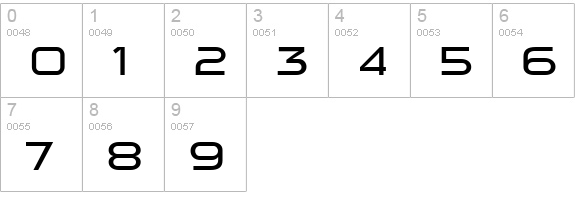
Sui Generis Light is a refined, elegant variant in the Sui typeface family \xE2\x80\x94 well suited to elegant body text, refined sub-headings, and luxury branding.
Sui Generis Light font is a modern and elegant typeface that exudes sophistication and style. Its sleek lines and graceful curves make it perfect for a wide range of design projects, from branding to editorial design. The light weight of the font gives it a delicate and airy quality, making it ideal for use in headers, titles, and other display text. What sets Sui Generis Light font apart is that it is not only beautiful, but also free to use. This means that you can add a touch of luxury to your designs without breaking the bank. Whether you're a professional designer or a hobbyist, this font is a fantastic addition to your typography collection. You can freely download Sui Generis Light font at FontsMarket.com, where you'll find a wide selection of high-quality fonts for all your design needs. Don't miss out on this opportunity to elevate your projects with this stunning and versatile typeface.